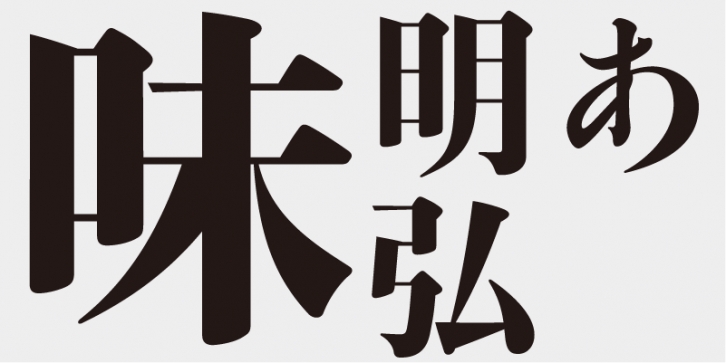
Although Ajimin has the flavor of hot metal type, it is not intended to be a revival, but a new typeface for display purposes. Like Bodoni, its vertical strokes are clear and heavy and its horizontal strokes are precise and thin. Its elements possess strength and stability.
This typeface is designed to be used in larger type sizes (for posters, for example), although it’s legible in smaller sizes. As the type size increases, the elegance of each stroke element becomes more visible.
According to historical records, the Koudouken-Shincho-tai typeface was created in the early Meiji period, when Masayoshi Kanzaki first thought of creating a brush-script typeface, Shouzan Komuro, a calligrapher, wrote the characters, and Munenori Oyamada engraved the steel punches.
The design had was strong and masculine and it stands as one of the greatest masterpieces in Japanese hot metal typeface design. As time went on, the typeface was used less frequently. In 1984, I tried to revive its letter-form structure in the Mincho-style and released the Koudouken kana typeface as one of the Ajioka Shintaro Kana Series for phototypesetting. I have redesigned it again as Ajimin Ko/EB, using Ajimin’s kanji characters.
This font includes top 1,000 kanji characters chosen from character frequency tables made by newspaper companies, publishing houses and linguistic research institutes, plus 206 kana characters and punctuation marks.
Ajimin has the flavor of hot metal type and, like Bodoni, its vertical strokes are clear and heavy and its horizontal strokes are precise and thin. Its elements possess strength and stability. Ajimin is a unique Mincho-style display typeface. Ajimin Modern’s elements are more sharply designed, but that sharpness is balanced by the richness and elegance of the design. Ajimin’s biggest feature is its 10 kana variations, ranging from running-hand-like designs, to revivals of designs from the age of hot metal type, to modern style kana. These variations make Ajimin useful for a wide range of purposes.